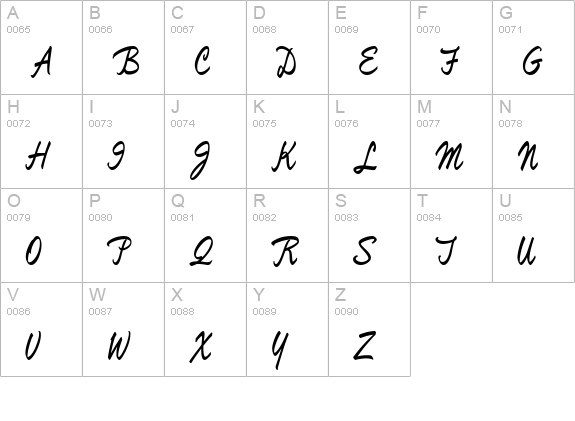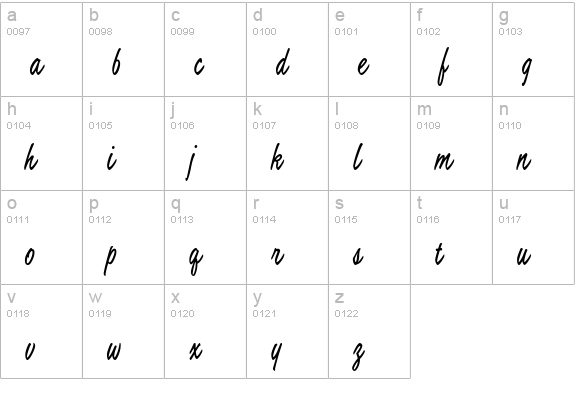
RetroRepro JF Font Details
RetroRepro JF font is a stunning and nostalgic typeface that takes inspiration from vintage design aesthetics. With its bold and eye-catching letterforms, this font effortlessly captures the essence of the retro era, transporting us back to a time filled with charm and character. The RetroRepro JF font is a versatile typeface that can be used for a wide range of design projects. Whether you're creating vintage-inspired logos, posters, or even branding materials, this font will add a touch of nostalgia and authenticity to your work. One of the best things about RetroRepro JF font is that it is free. Yes, you read that right - this amazing typeface is freely available to download at FontsMarket.com. So, you can bring a piece of the past into your design projects without having to spend a dime. Designed with utmost attention to detail, RetroRepro JF font features clean lines, smooth curves, and a timeless elegance that will surely make your designs stand out. Its legibility and readability make it a perfect choice for both print and digital media. Whether you're a graphic designer, typographer, or simply someone who appreciates the beauty of vintage-inspired typography, RetroRepro JF font is a must-have in your font collection. So why wait? Head over to FontsMarket.com and download this amazing font for free today!